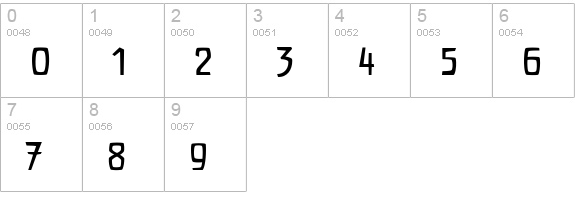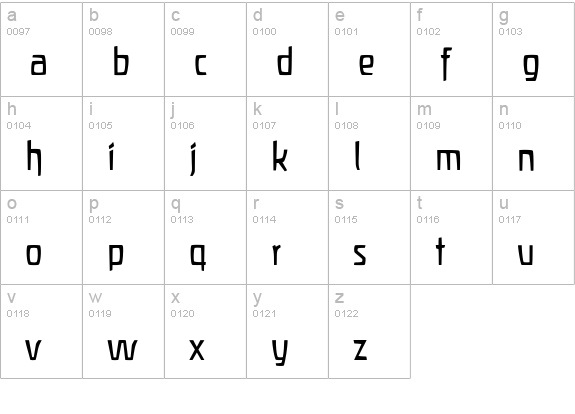
Liant-Regular is the standard, neutral variant in the Liant typeface family \xE2\x80\x94 well suited to general body text, paragraphs, and standard typographic work.
Liant-Regular is a versatile and modern font that exudes elegance and sophistication. With its clean lines and contemporary design, this typeface is perfect for a wide range of projects, from branding to editorial design. The balanced proportions and subtle curves of Liant-Regular make it easy to read and visually appealing. The best part is that Liant-Regular is available for free download at FontsMarket.com. This means that you can easily access this high-quality font without any cost, making it a valuable addition to your font library. Whether you're working on a professional project or a personal creative endeavor, Liant-Regular is sure to add a touch of style and polish to your designs.